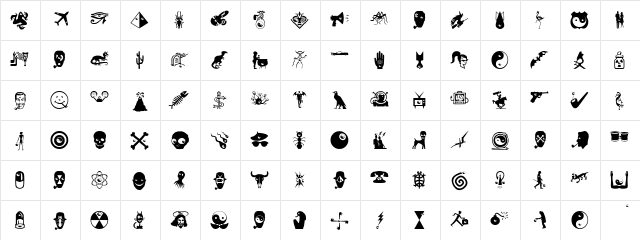
QuestionsOfBranding Regular Font Preview
QuestionsOfBranding Regular
Design Context for QuestionsOfBranding Typeface
QuestionsOfBranding is a composed and adaptable typeface that performs quietly and consistently across a wide range of design contexts.